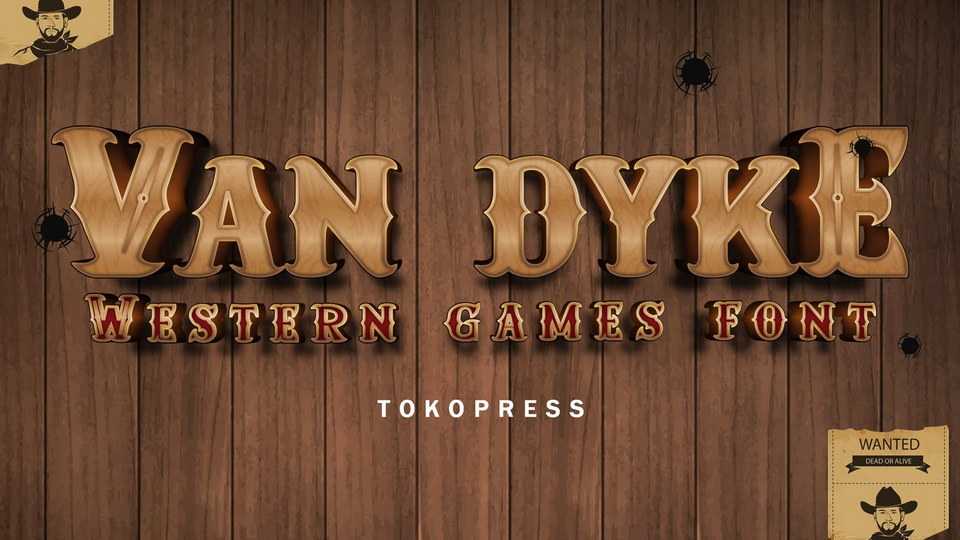
Download Van Dyke font, a gaming western typeface. It is western, it is ruling the rough and dusty world, it is Van Dyke, your new favorite western gaming font in town.